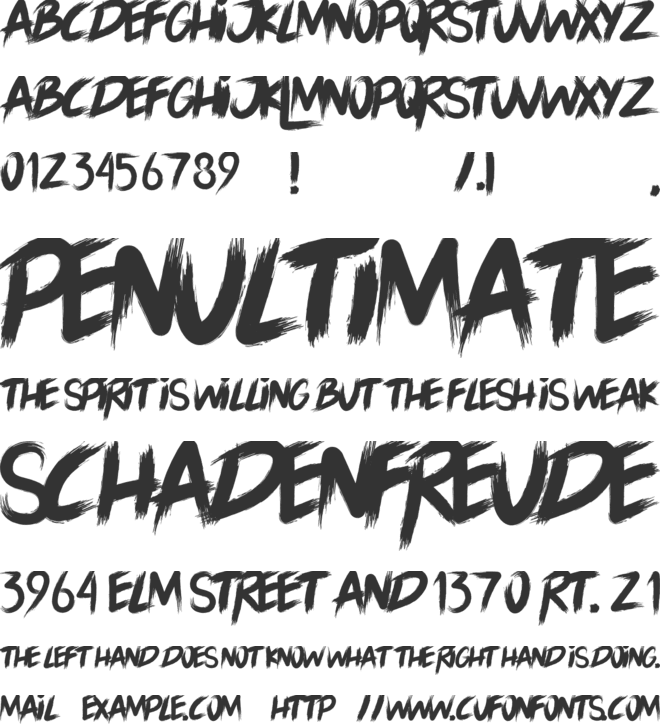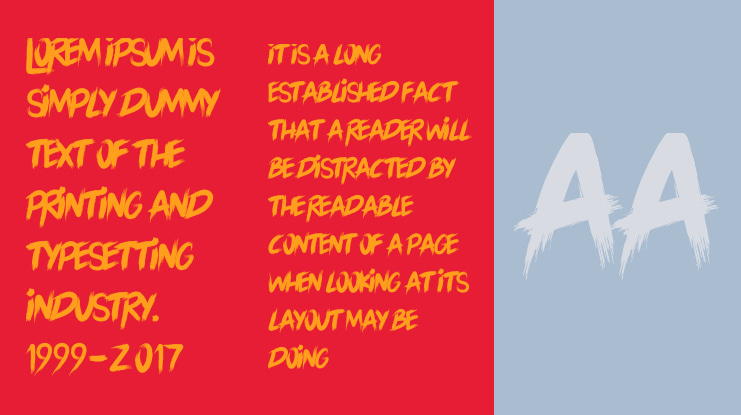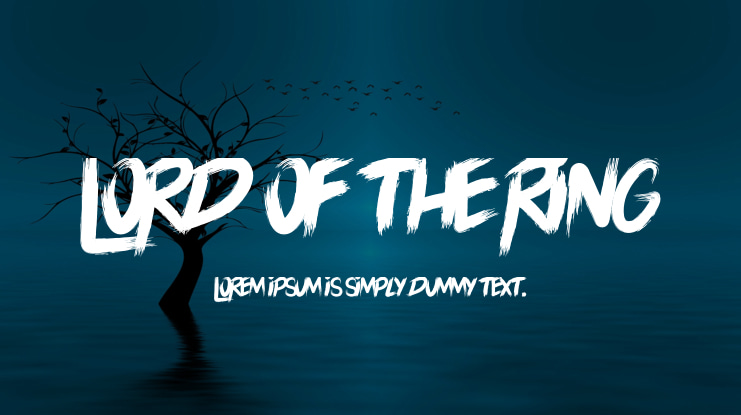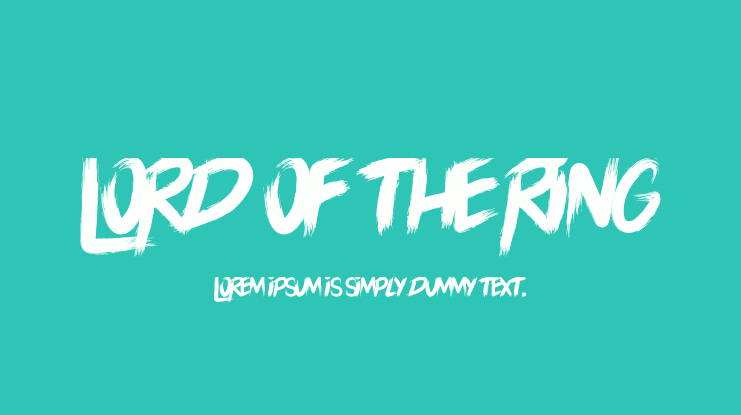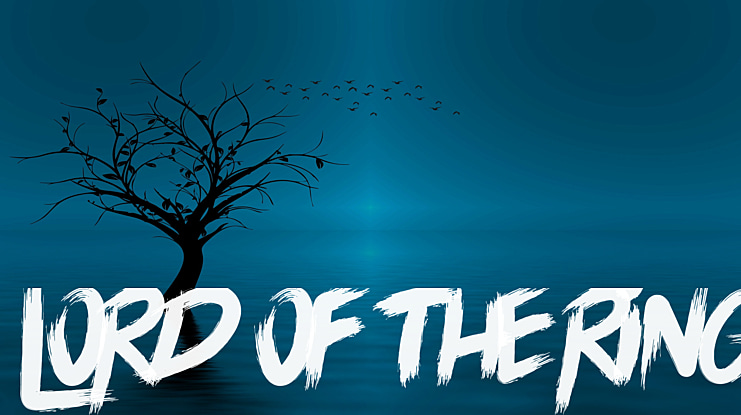
LORD OF THE RING Font
Lord Of The Ring is a fun display typeface. It will lift your design and add a cheeky touch to each of your creations. Use this font for your designs and explore its endless possibilities.